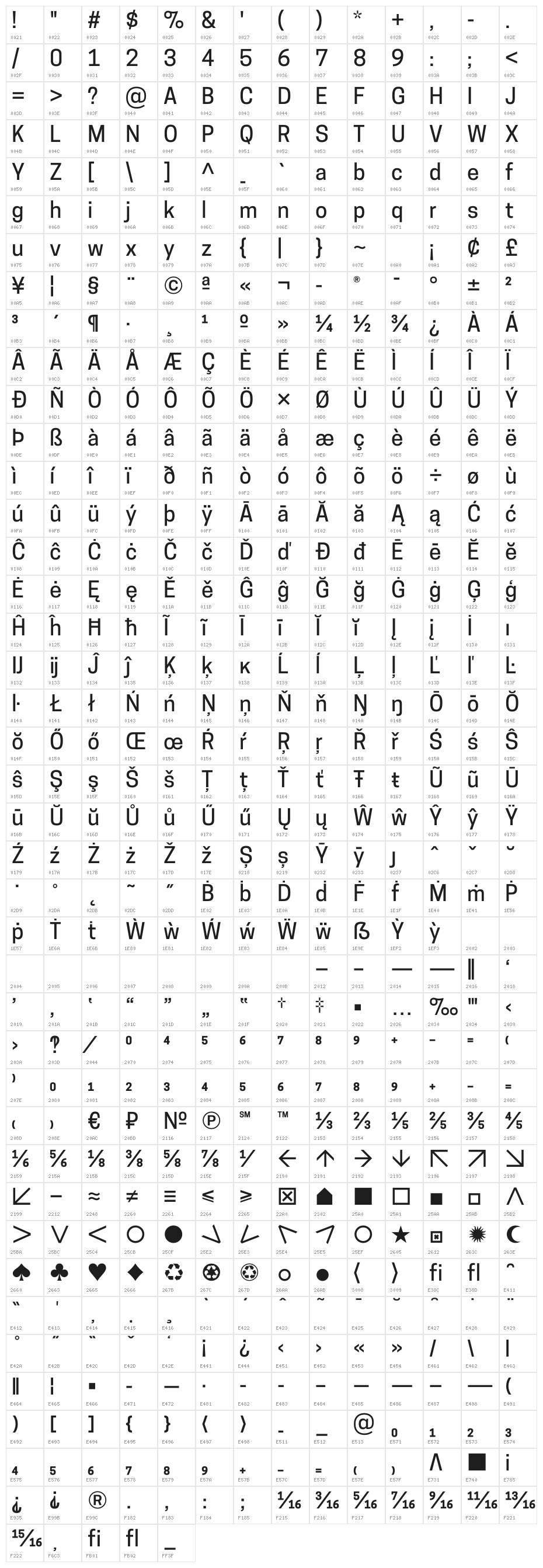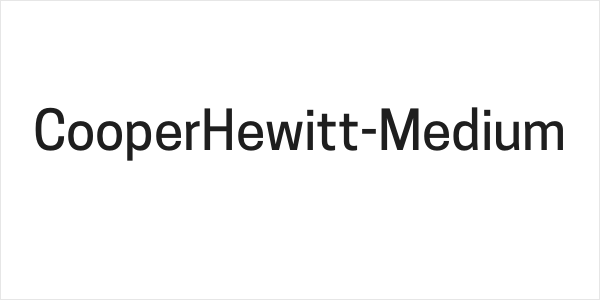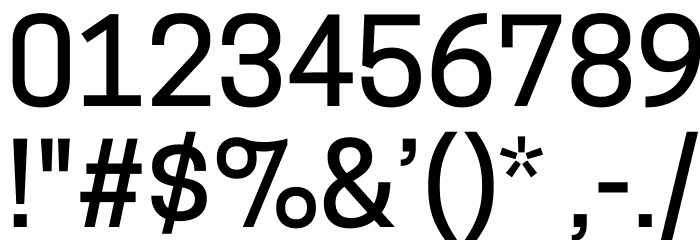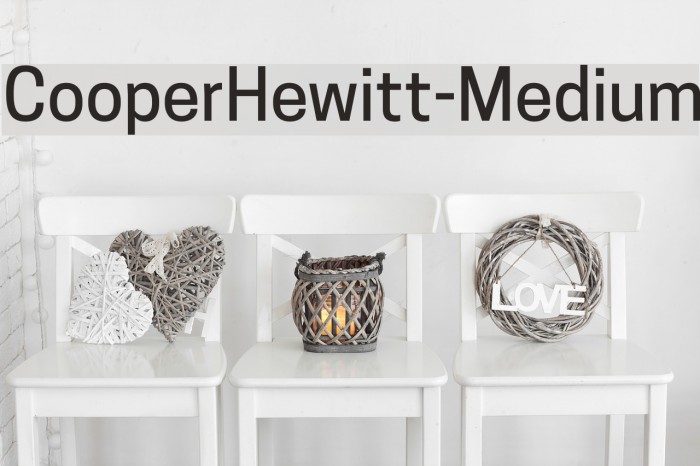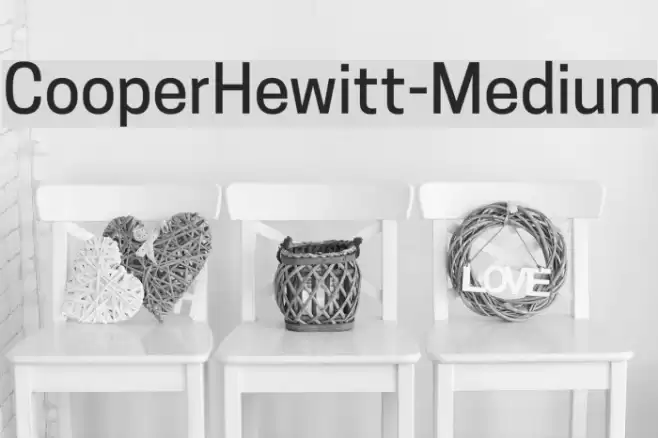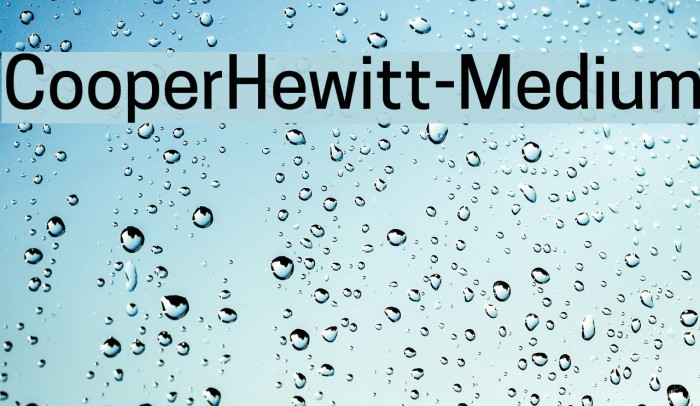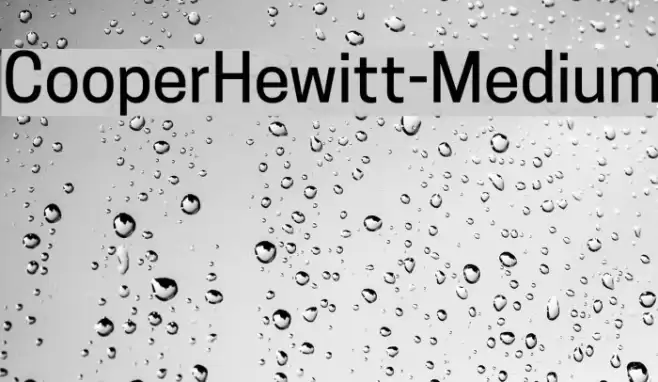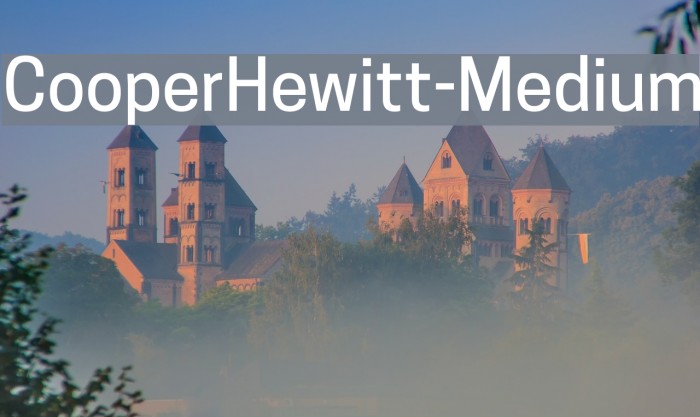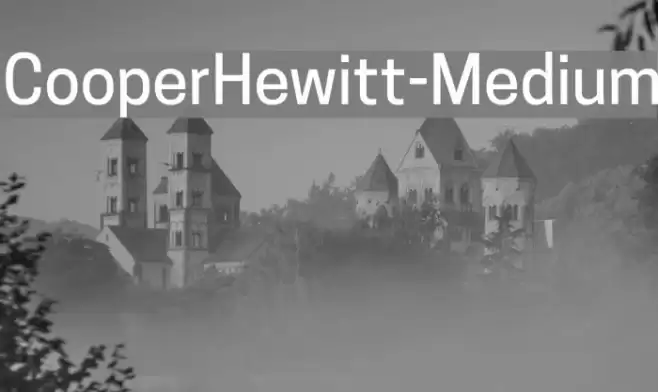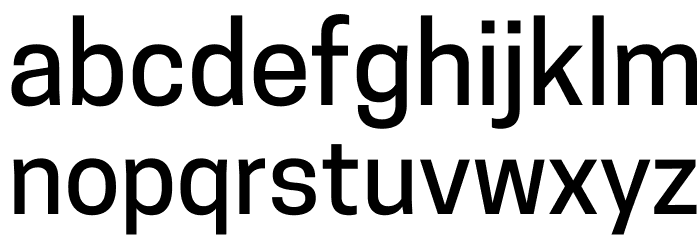
CooperHewitt-Medium Font
CooperHewitt-Medium Description
This typeface features a clean and modern sans-serif design, characterized by its geometric shapes and uniform stroke widths. The uppercase letters are bold and assertive, while the lowercase letters maintain a balanced and harmonious appearance. The numerals are clear and easy to read, making them suitable for various applications. Special characters are well-integrated, maintaining the overall aesthetic of the font. The design is versatile, offering a contemporary look that can be used in a wide range of projects.